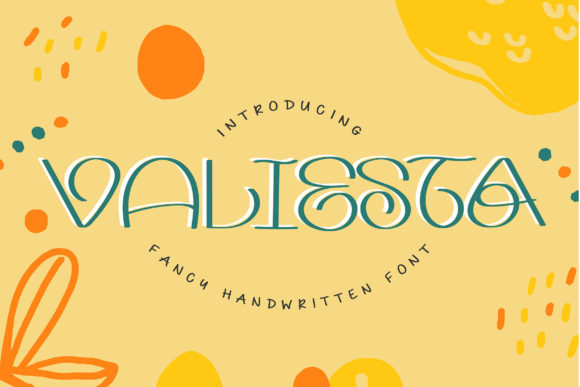
Introducing Valiesta Font: A Cute, Quirky, and Informal Handwritten Font
Are you looking for a font that can add a touch of personality to your designs? Look no further than Valiesta Font, a cute, quirky, and informal handwritten font that’s perfect for a variety of projects. In this article, we’ll take a closer look at Valiesta Font, its features, and how you can use it to take your designs to the next level.
What is Valiesta Font?
Valiesta Font is a beautiful, handwritten font that’s designed to add a touch of whimsy to your designs. It’s perfect for projects that require a personal and informal touch, such as invitations, greeting cards, and social media graphics. The font is PUA encoded, which means you can access all of the glyphs and swashes with ease, giving you endless possibilities for creative expression.
Features of Valiesta Font
So, what makes Valiesta Font so special? Here are just a few of its key features:
- Cute and Quirky Design: Valiesta Font has a playful, informal design that’s perfect for adding a touch of personality to your projects.
- PUA Encoded: The font is PUA encoded, which means you can access all of the glyphs and swashes with ease.
- Endless Creative Possibilities: With Valiesta Font, the only limit is your imagination. You can use it to create a wide range of projects, from invitations and greeting cards to social media graphics and more.
Who is Valiesta Font for?
Valiesta Font is perfect for a variety of designers, crafters, and small business owners, including:
- Graphic Designers: If you’re a graphic designer looking for a unique and playful font to add to your collection, Valiesta Font is a great choice.
- Crafters: If you’re a crafter who loves to create handmade cards, invitations, and other paper crafts, Valiesta Font is a great addition to your design toolkit.
- Small Business Owners: If you’re a small business owner looking for a way to add a personal touch to your branding, Valiesta Font is a great option.
- Social Media Influencers: If you’re a social media influencer looking for a way to add a touch of personality to your graphics, Valiesta Font is a great choice.
Tips and Tricks for Using Valiesta Font
Here are a few tips and tricks to help you get the most out of Valiesta Font:
- Experiment with Different Sizes and Colors: Don’t be afraid to experiment with different sizes and colors to find the perfect combination for your design.
- Use the Glyphs and Swashes: Take advantage of the PUA encoding and use the glyphs and swashes to add visual interest to your design.
- Mix and Match with Other Fonts: Valiesta Font pairs well with other fonts, so don’t be afraid to mix and match to create a unique look.
- Use it for Display Text: Valiesta Font is perfect for display text, such as headings and titles.
In conclusion, Valiesta Font is a beautiful, handwritten font that’s perfect for adding a touch of personality to your designs. With its cute and quirky design, PUA encoding, and endless creative possibilities, it’s a great choice for a variety of projects. Whether you’re a graphic designer, crafter, small business owner, or social media influencer, Valiesta Font is a great addition to your design toolkit.
- Valiesta Font is a cute, quirky, and informal handwritten font that’s perfect for adding a touch of personality to your designs.
- Yes, Valiesta Font is PUA encoded, which means you can access all of the glyphs and swashes with ease.
- Valiesta Font is perfect for a variety of projects, including invitations, greeting cards, social media graphics, and more.